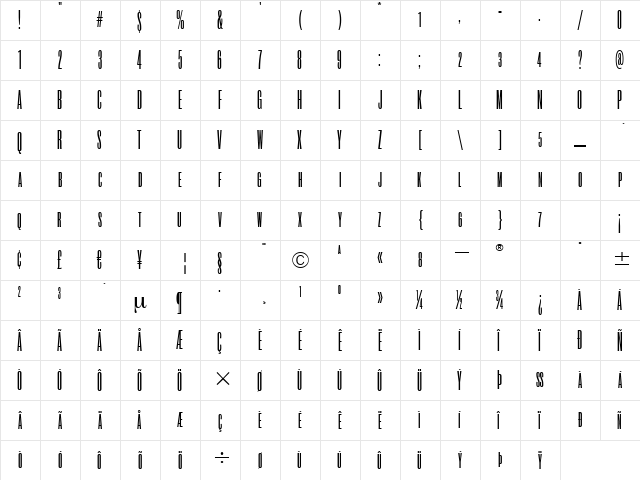
RoswellSCTwoITC TT Regular
| Foundry | International Typeface Corporation |
| Designer | Jim Parkinson |
Design Context for RoswellSCTwoITC TT Typeface
RoswellSCTwoITC TT takes a measured approach to typography — its balanced proportions and neutral character make it a reliable workhorse for both digital and print work.